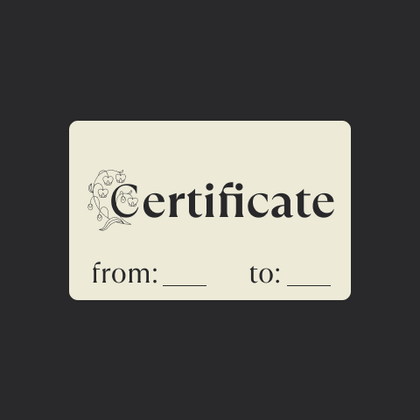
Certificates fonts
To give documents a distinguished and official appearance, certificate fonts offer elegance with an air of prestige. Featuring refined serifs, subtle stroke contrasts, and sophisticated proportions, these typefaces enhance the formality of diplomas, awards, and certifications. The TypeType collection includes both classic calligraphic fonts for honorary diplomas and structured Antiquas for official certifications, guaranteeing a polished and prestigious presentation.
TT Quaris is an exquisite, modern high-contrast sans whose design balances between soft and sharp. The glyph shapes in the font are fluid and tend towards roundness, yet there are also sharp elements.
TT Ricordi Allegria is a sleek and intelligent contemporary Florentine grotesque.
TT Bakers is a fluid serif with a gentle and lively character. This font is like freshly baked goods: it’s warm and soft, especially in its bolder weights.
TT Norms® Pro is a typographic legend embraced by world-renowned brands. Evolved through multiple iterations, it has conquered MyFonts and redefined typographic versatility. A design workhorse that transforms from a humble tool to an essential creative companion.
TT Commons™ Pro is the studio’s typographic powerhouse. A font so versatile it defies categorization, seamlessly bridging style and function. For designers seeking a universal foundation that elevates every project, this is the definitive choice.
TT Hoves Pro is a Scandinavian sans serif that whispers minimalist elegance. Simultaneously understated and distinctive, it’s a designer’s secret weapon that transforms complex challenges into visual poetry with effortless precision.
TT Neoris is a true shape-shifting font that seamlessly adapts to your tasks and preferences. We developed it for two and a half years to make it perfect in everything: from design to functionality. A Muse and Indigo award-winner that redefines typographic potential.
TT Supermolot Neue is a game-changer in visual communication! An advanced, modular sans serif that captures the pulse of technological innovation, bringing electrifying vision to everything from immersive game interfaces to bold visual narratives.
TT Firs Neue is a balanced sans serif infused with Scandinavian design philosophy. Elegant and versatile, polished through two deliberate revisions to achieve typographic perfection.
TT Rounds Neue is a soft and friendly font that knows how to be different. In lighter font styles it looks minimalist and neutral. The bold font styles make it puff up and achieve maximum roundness, exuding childlike charm.
TT Fors is a design Swiss Army knife of typography. This geometric sans serif delivers pure versatility through clean, refined proportions. It can be used for defining interfaces or crafting visual accents.
TT Ramillas is a stylish and contemporary serif that elevates design to an art form. Characterized by its unique decorative styles and initials with a floral ornament, it crafts visual experiences that are truly one-of-a-kind. Already adorning over 3000 websites globally, it’s a Modern Cyrillic award-winner that redefines typographic sophistication.
TT Modernoir is a display sans serif with dynamic proportions. Fluid lines and delicate Art Nouveau forms in this typeface blend seamlessly with the rhythmic flow and improvisational freedom of jazz.
TT Moons is a slim and contrast serif. This font family works especially smart in classic design themes. TT Moons is a typeface of the glyptal modern typeface.
TT Ricordi Greto is an experimental project, inspired by a floor plaque dating from 1423 found in the Basilica di Santa Croce, Florence.
TT Firs Neue is a contemporary reincarnation of the good old TT Firs sans serif.
TT Disruptors is a ductile marker-drawn handwritten typeface. Its design is one-of-a-kind: worn edges, varying stroke thickness, and elongated ascenders and descenders give it a lively, dynamic texture and handcrafted feel. The personality of this font is spirited and emotional, yet warm and soulful.
TT Gertika is a geometric sans serif with a dynamic character and a dancing rhythm. This font’s idea originates from the lettering featured on an American poster from the late 1930s.
TT Biersal is a display sans serif with a free-spirited, playful, and adventurous nature. The concept of this font was sparked by a German poster from the early 1930s.
TT Travels Next is a very trendy and modern wide display sans serif for use in different sets, be they print or web.
TT Globs is the first font from the TypeType Starter Kit line.
TT Ricks is a flamboyant elzevir-type serif, for which the words “cute” or “calm” are not a fitting definition.
TT Carvist—peculiar, playful, and courageous—this font does an excellent job of grabbing attention!
TT Espina is a display antiqua with expressive serifs